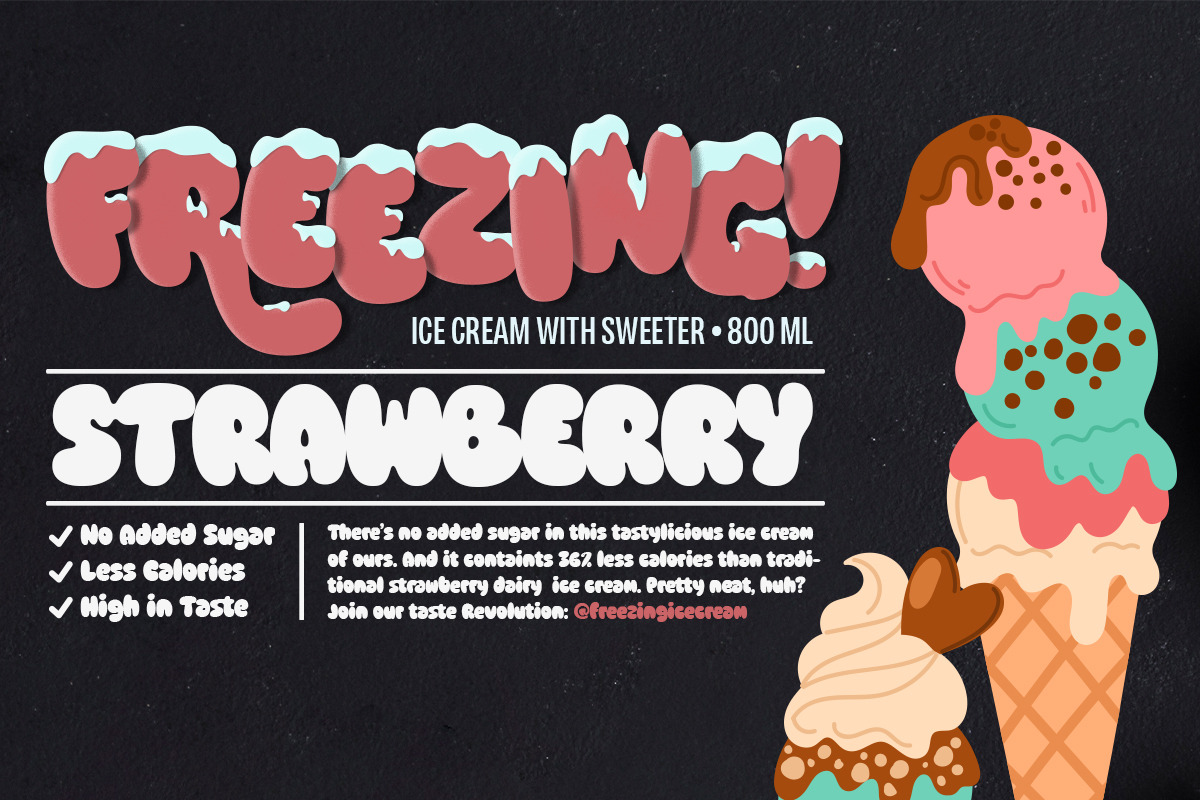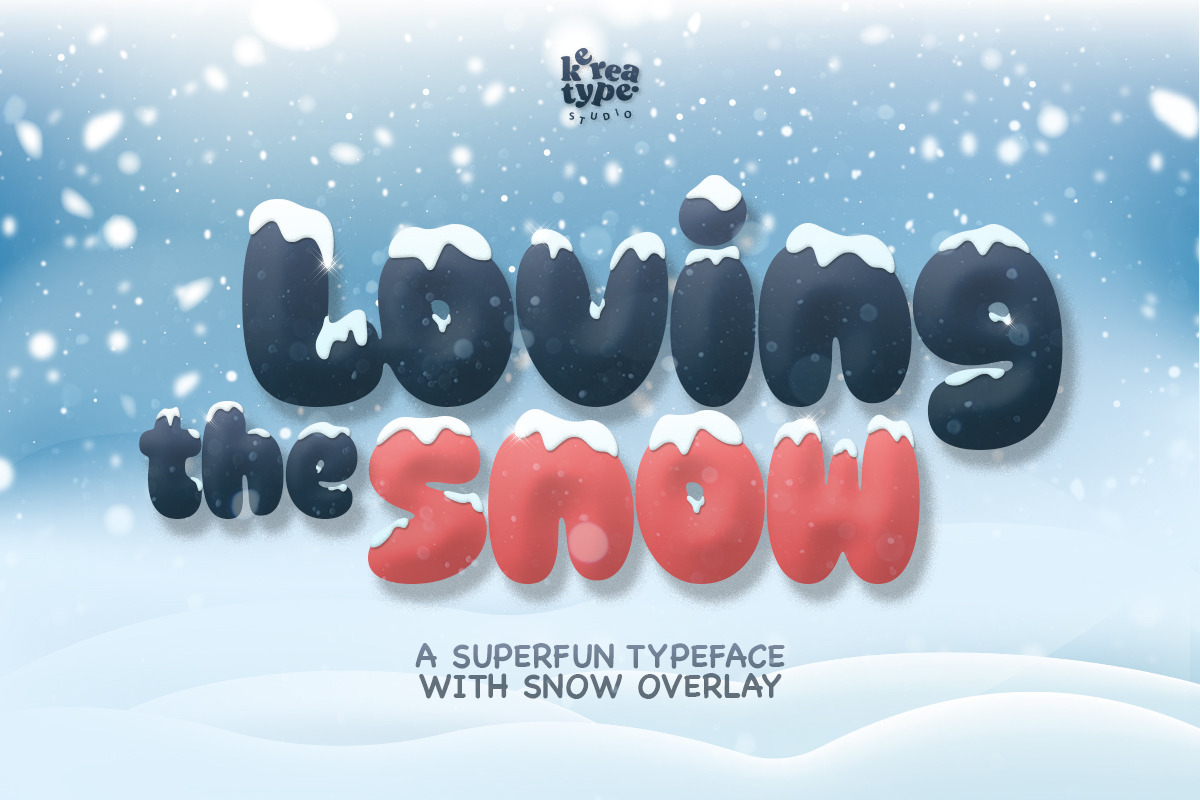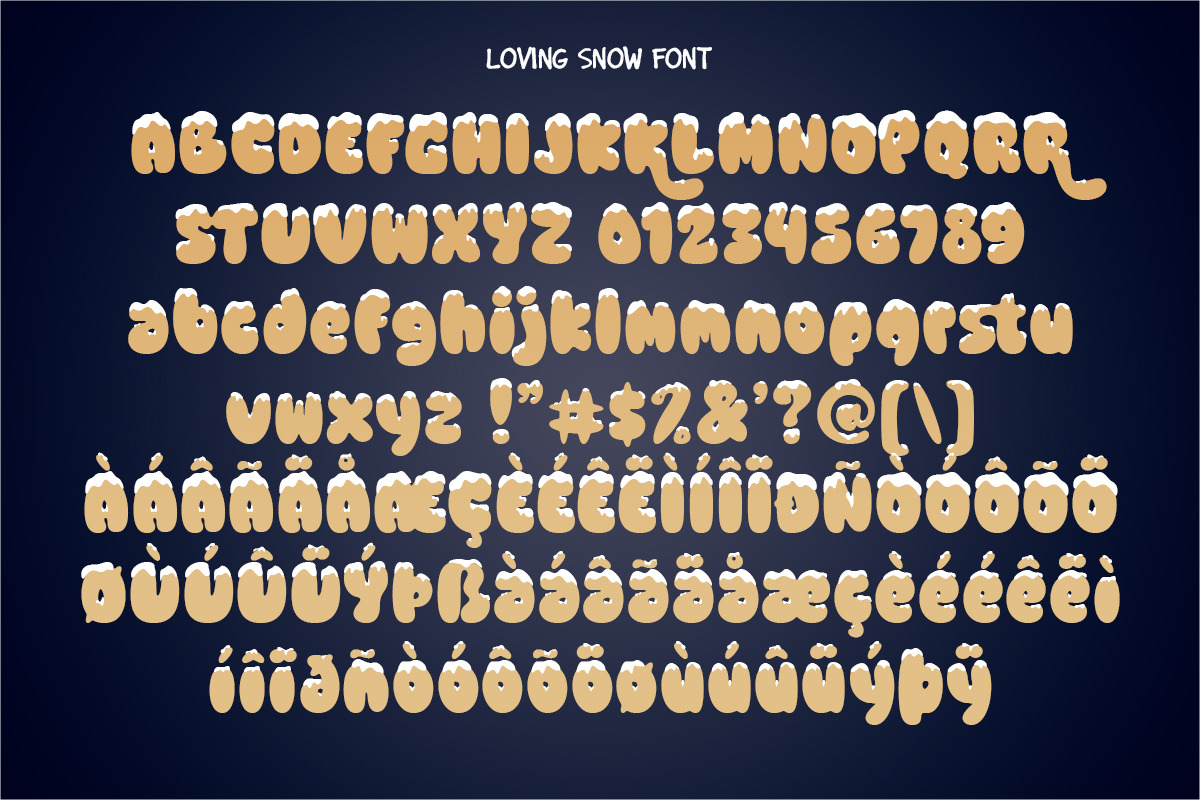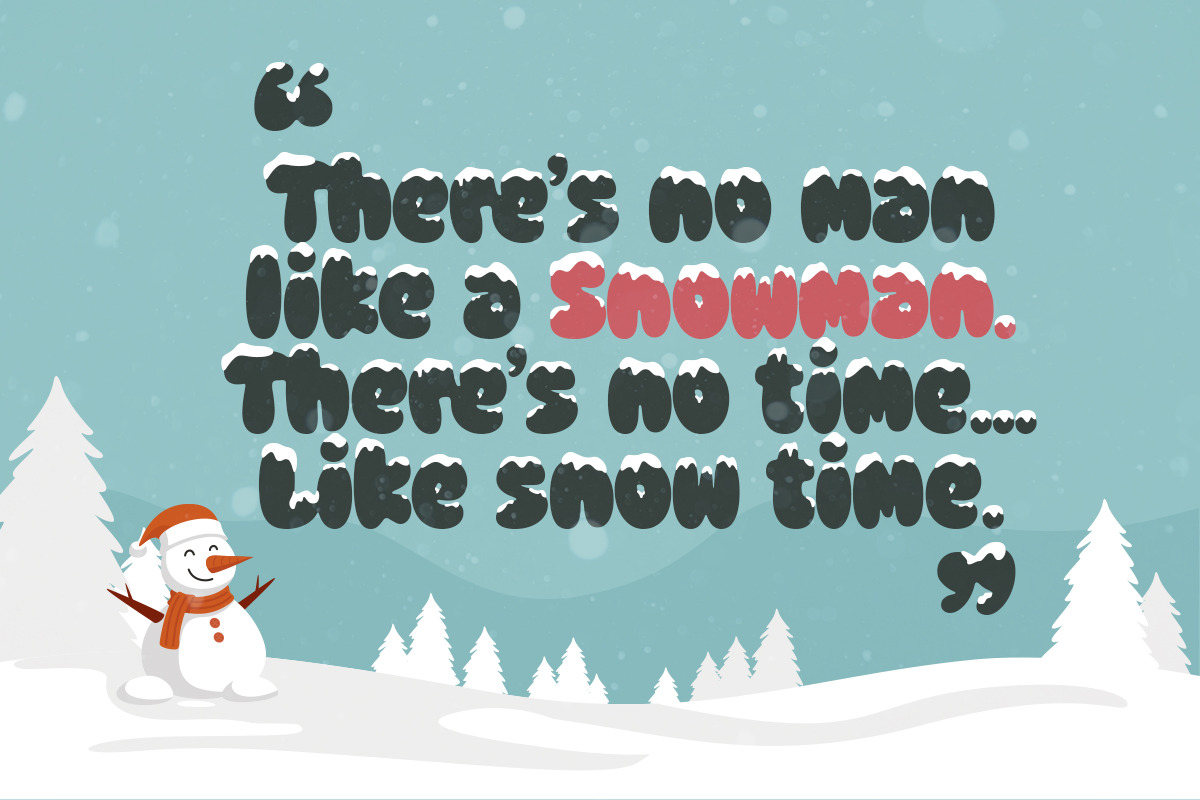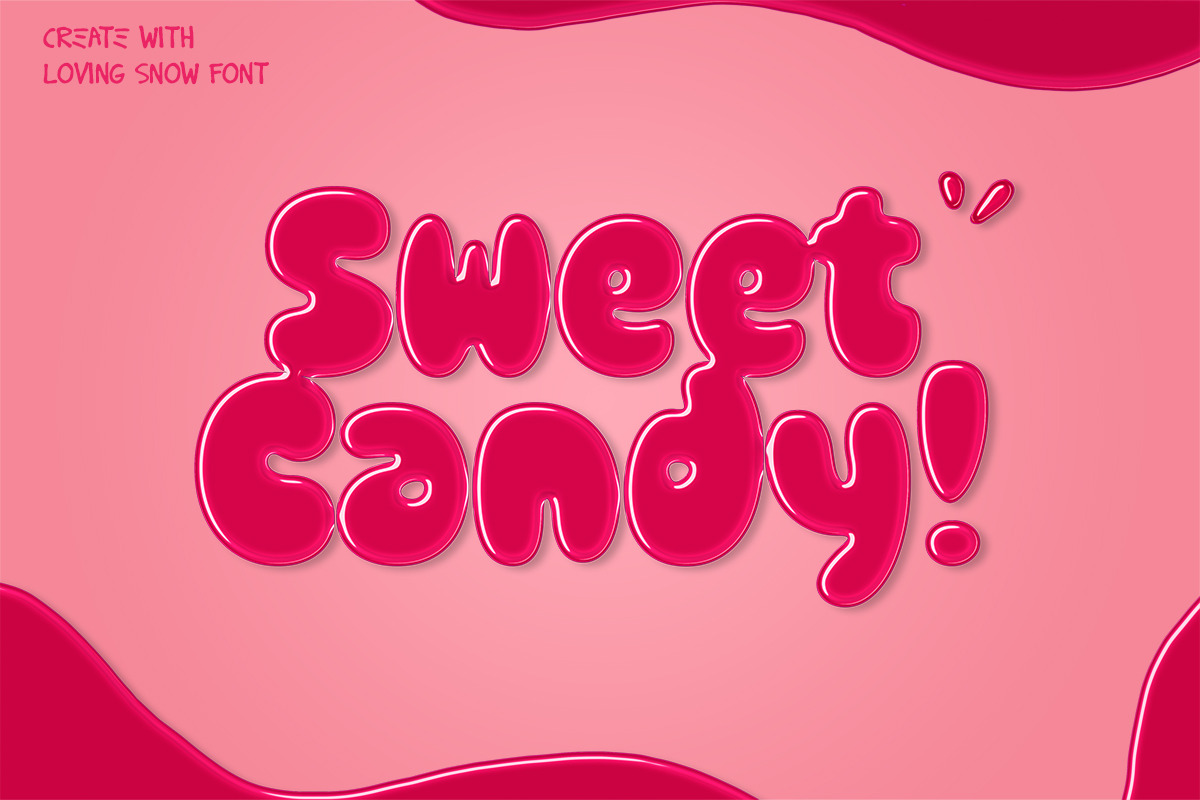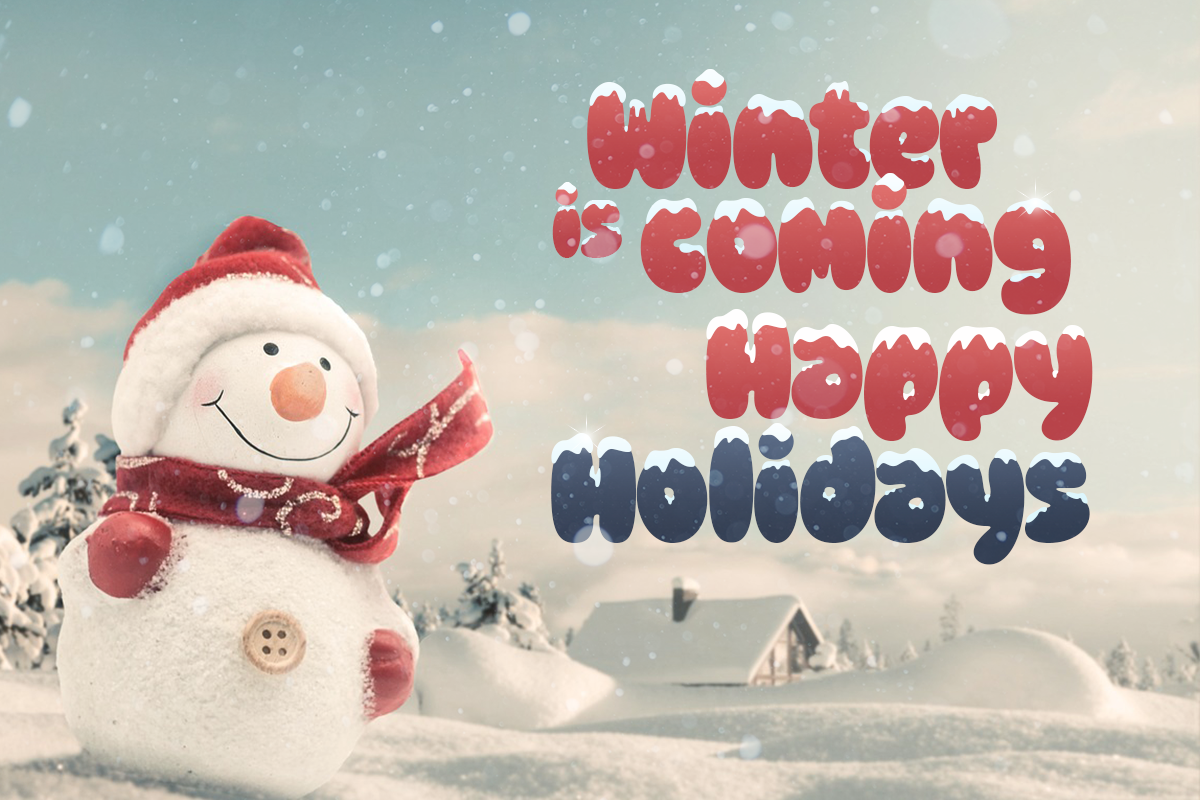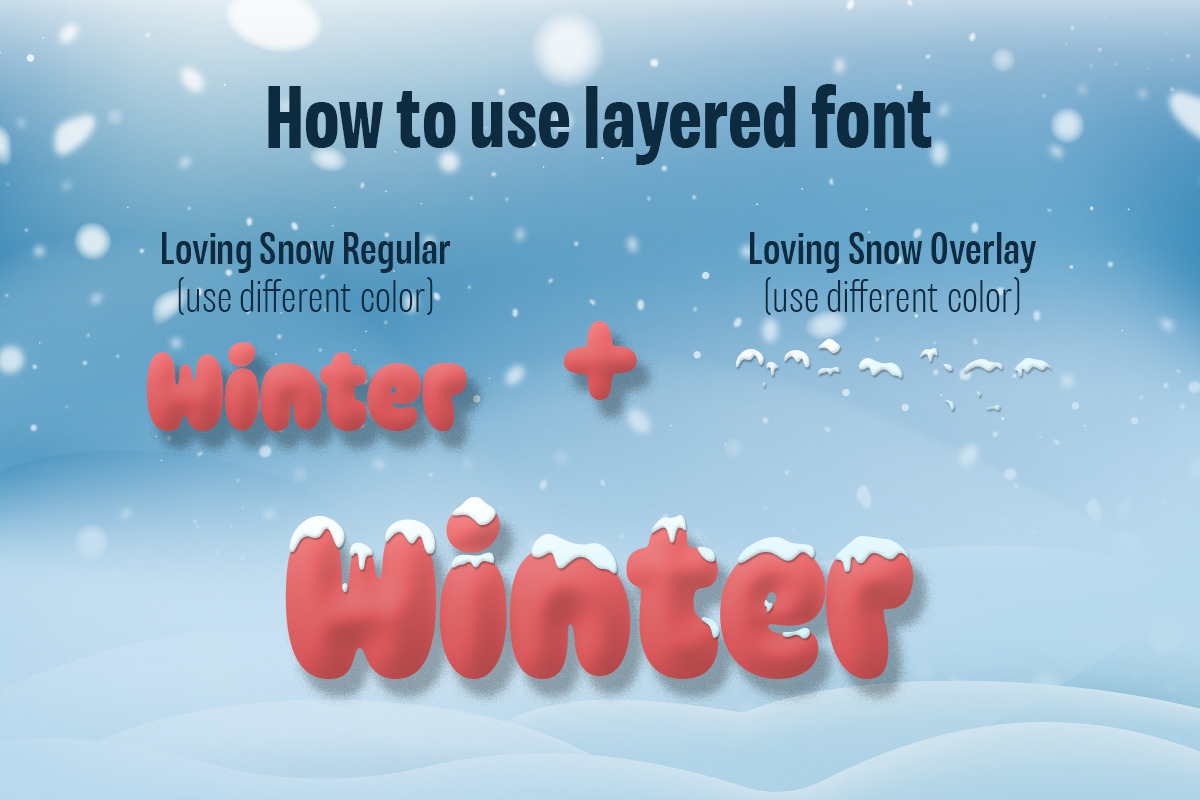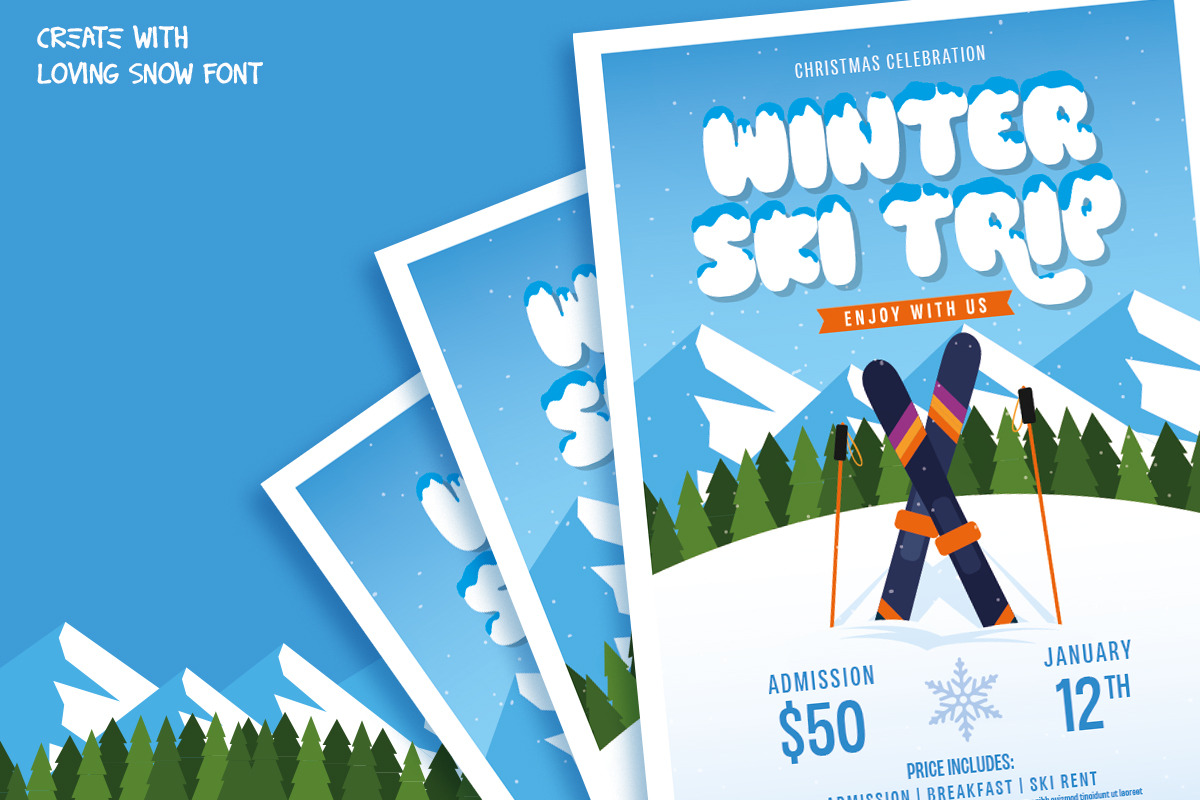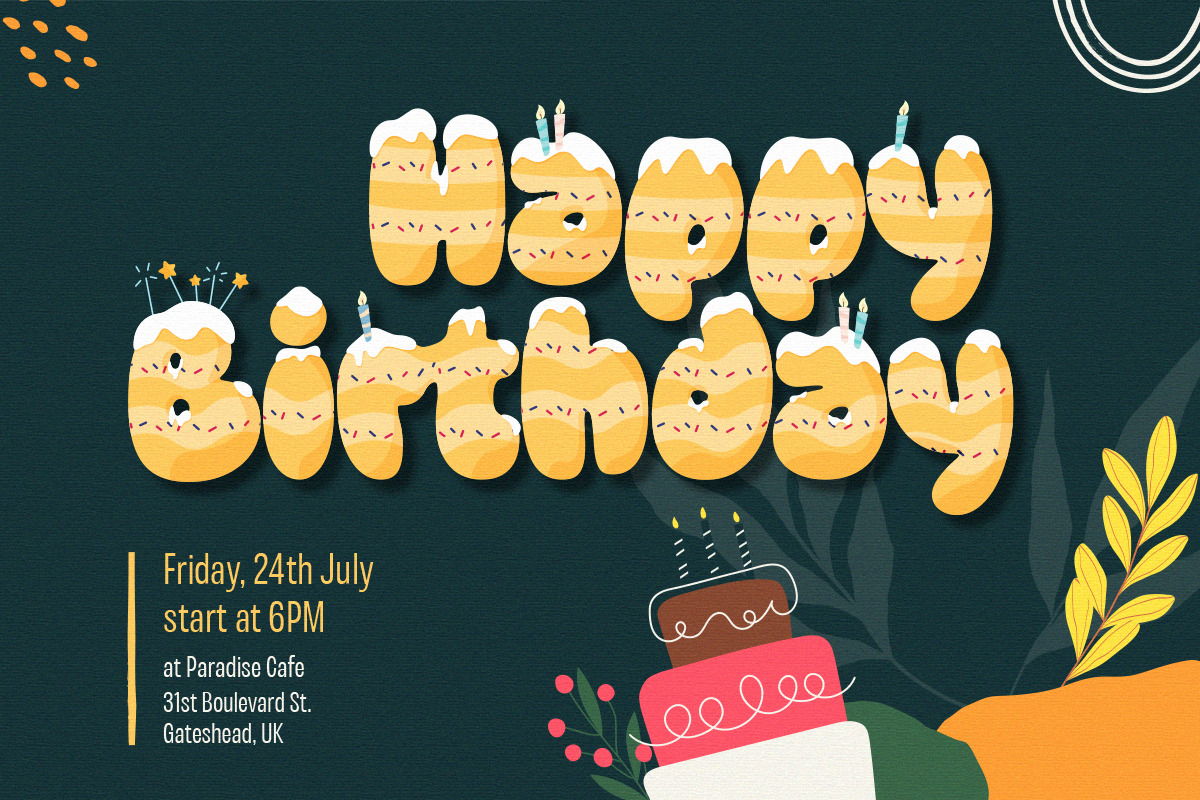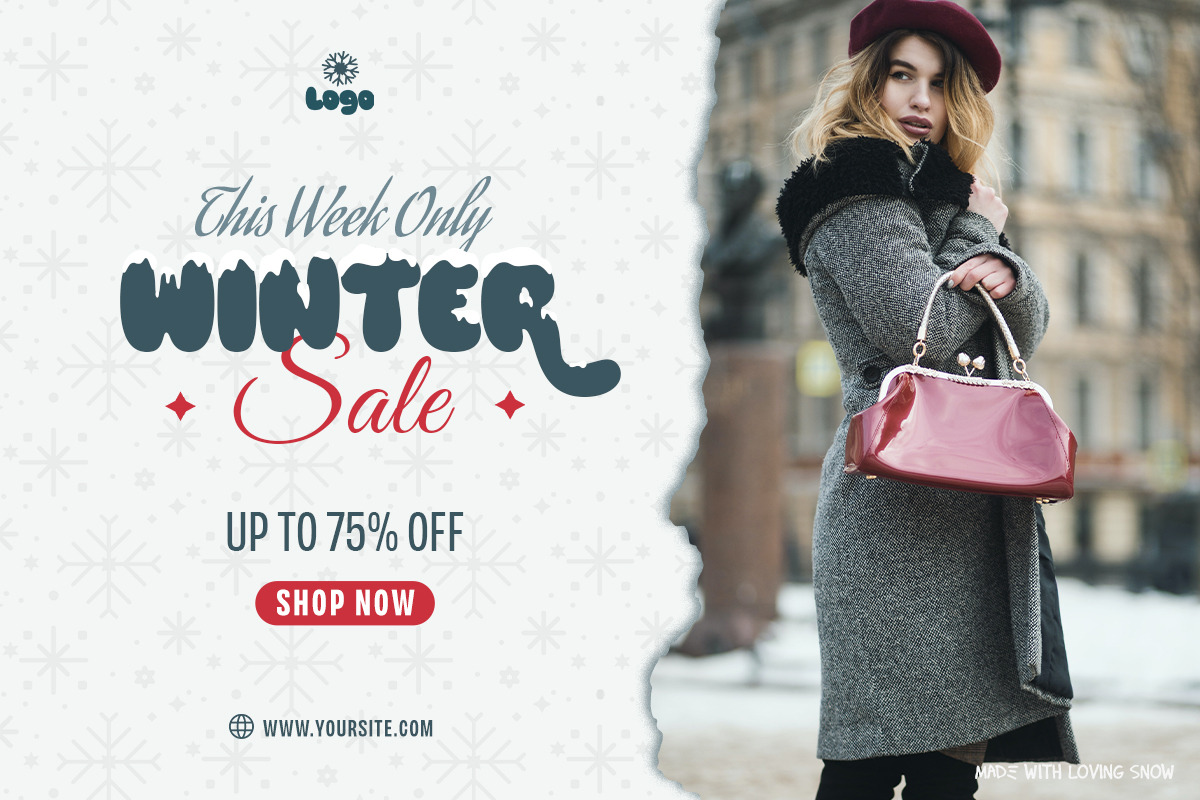
Loving Snow Font
A Superfun font with a wide and bold. It can be used alone, or with the overlay version placed on top for a snow-capped effect.
This font is a winter theme font so that this font will be perfect for your winter-themed projects
The loving snow font comes with uppercase and lowercase letters, numerals, and punctuation and also supports multi-language.